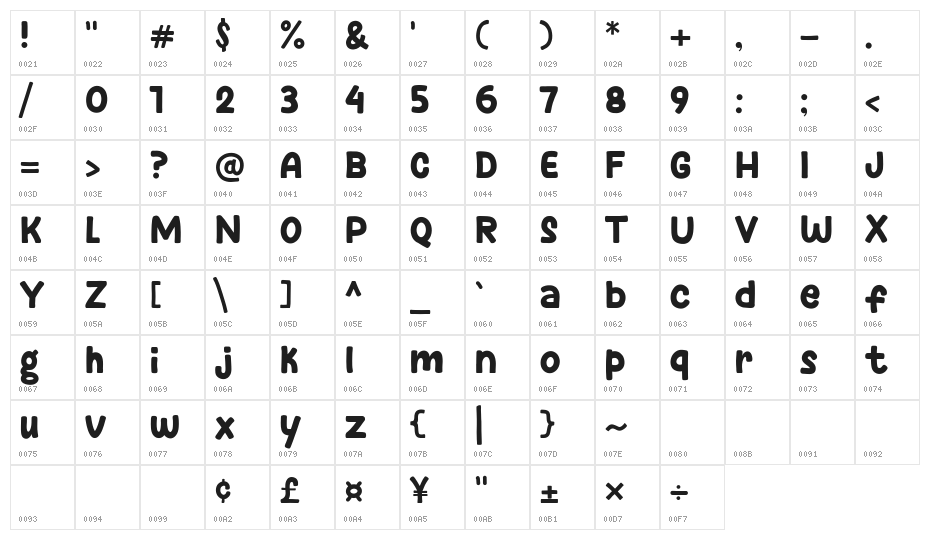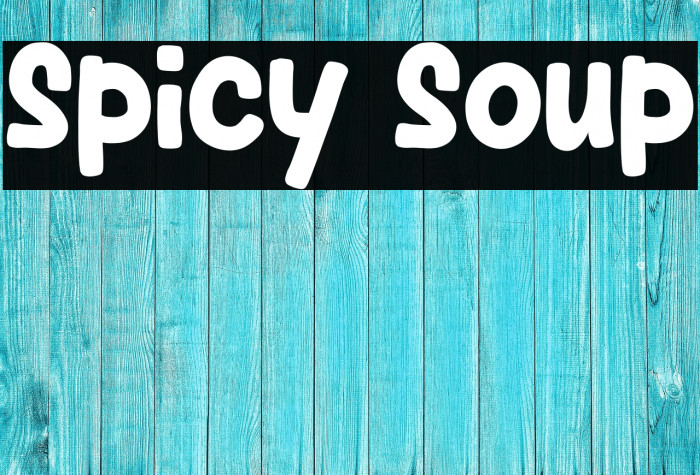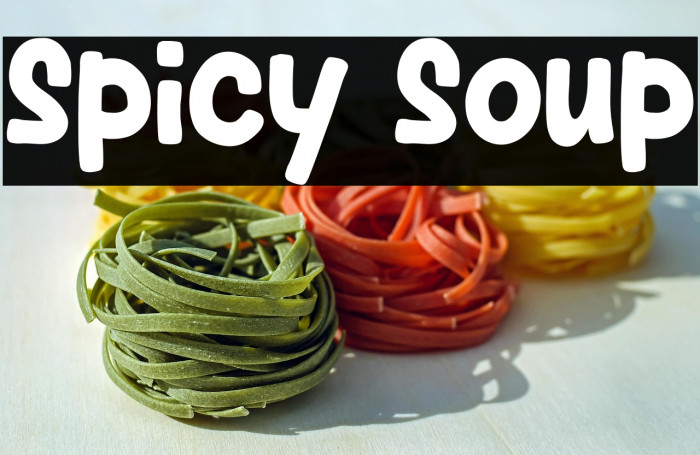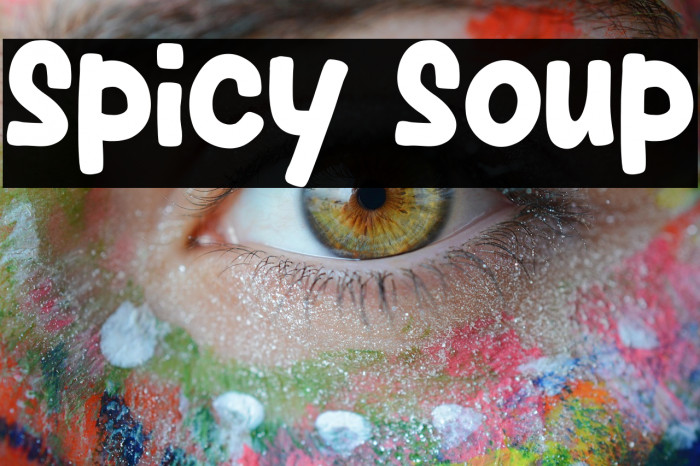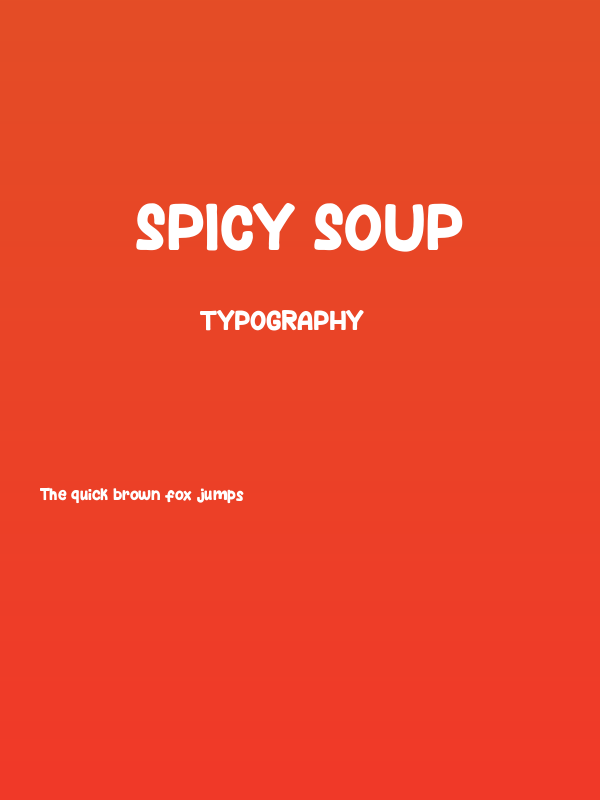
Spicy Soup Font
Spicy Soup Description
This playful and bold font features rounded edges and a friendly, approachable style. Each character is crafted with a consistent thickness, giving it a uniform appearance that enhances readability. The font's bubbly nature makes it stand out, with a whimsical touch that adds personality to any text. Its boldness ensures that it captures attention, making it ideal for designs that require a fun and engaging look. The characters are evenly spaced, providing a balanced and harmonious visual flow. The font includes a full set of uppercase and lowercase letters, numbers, and a variety of special characters, ensuring versatility in its application.
| Proposed Projects | Ideal for children's books, playful branding, posters, and social media graphics. |